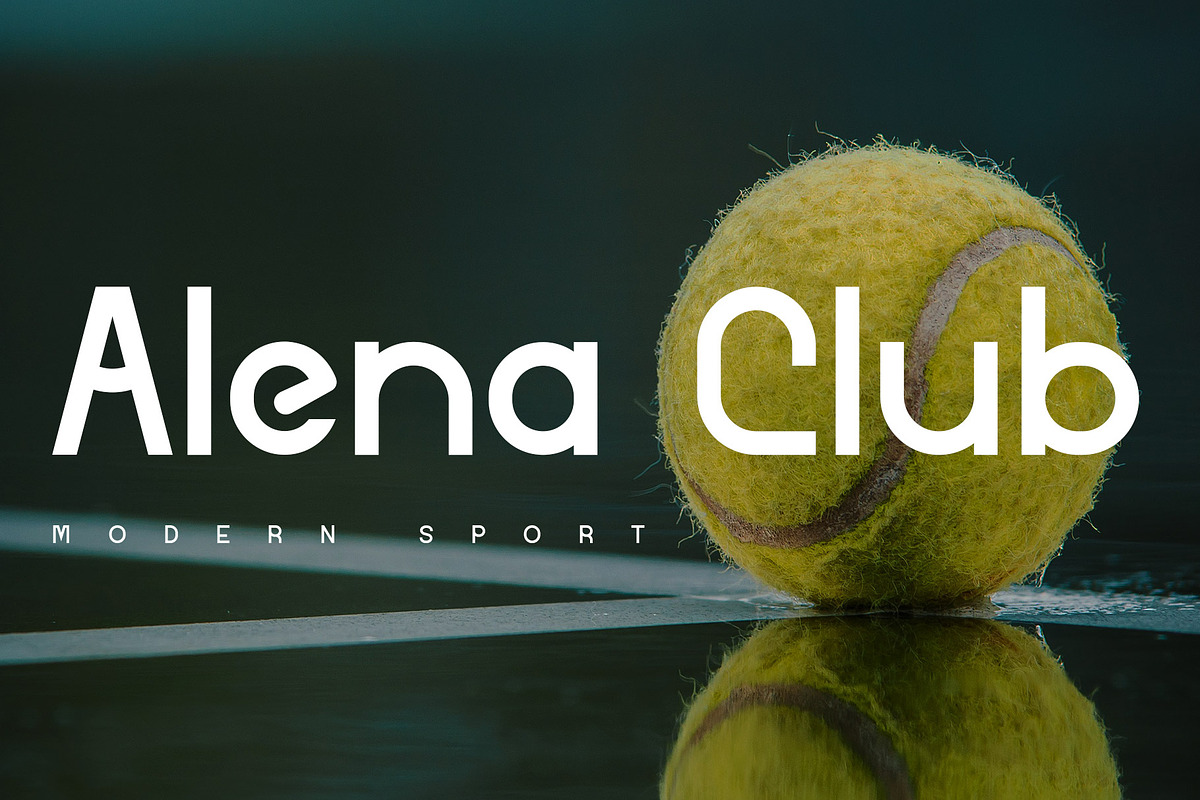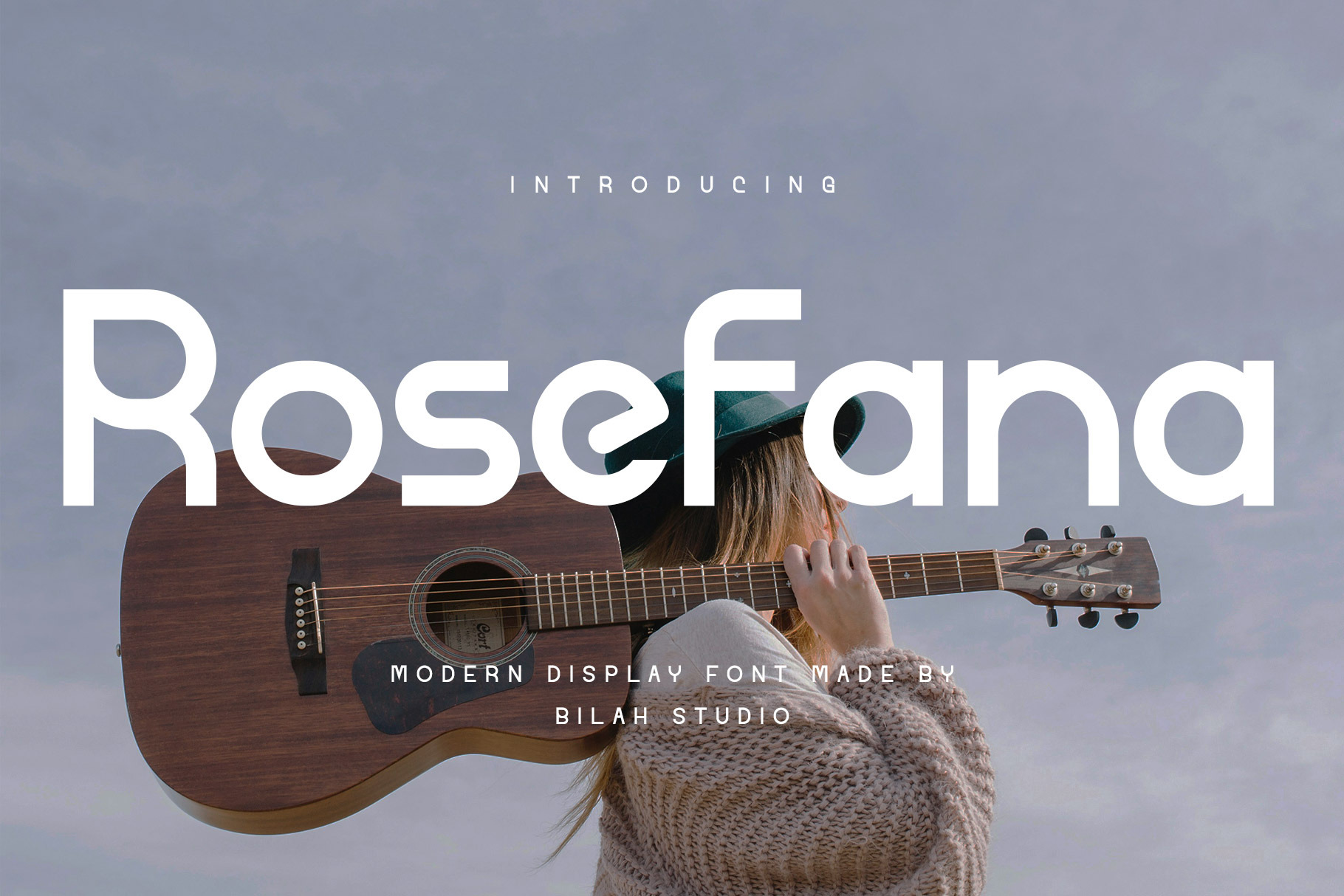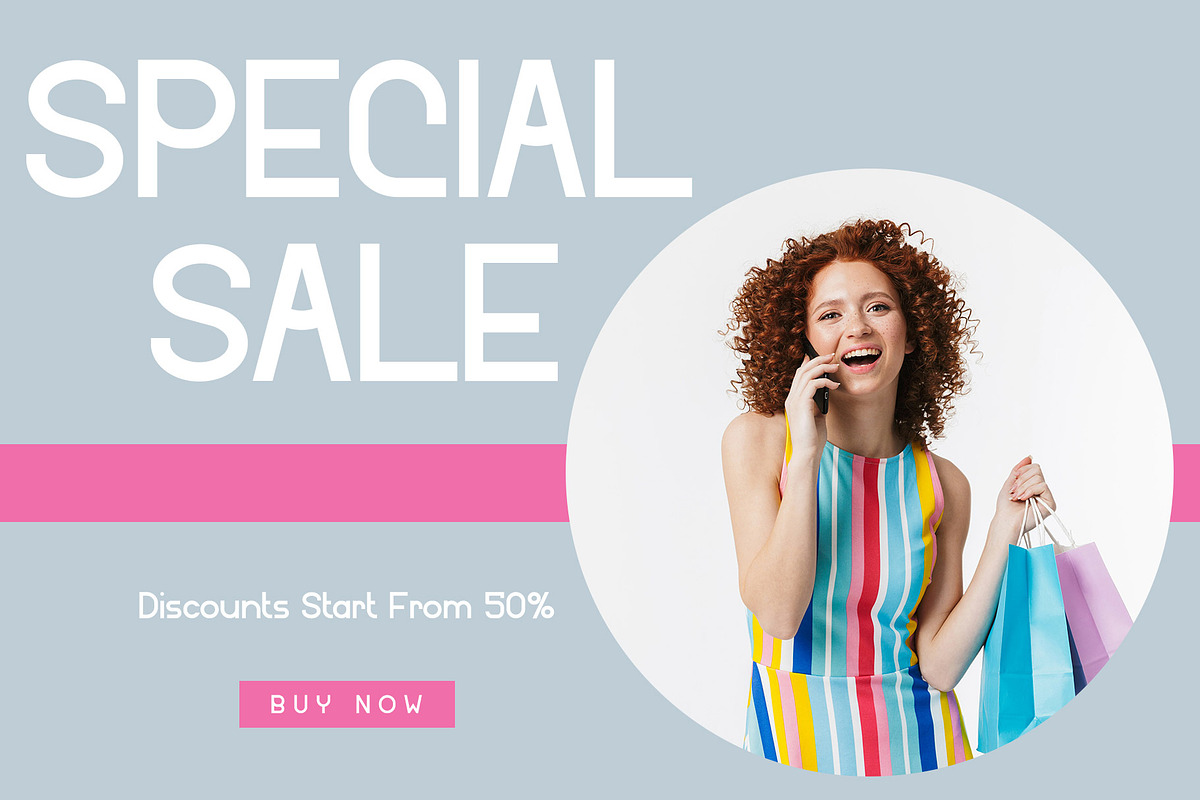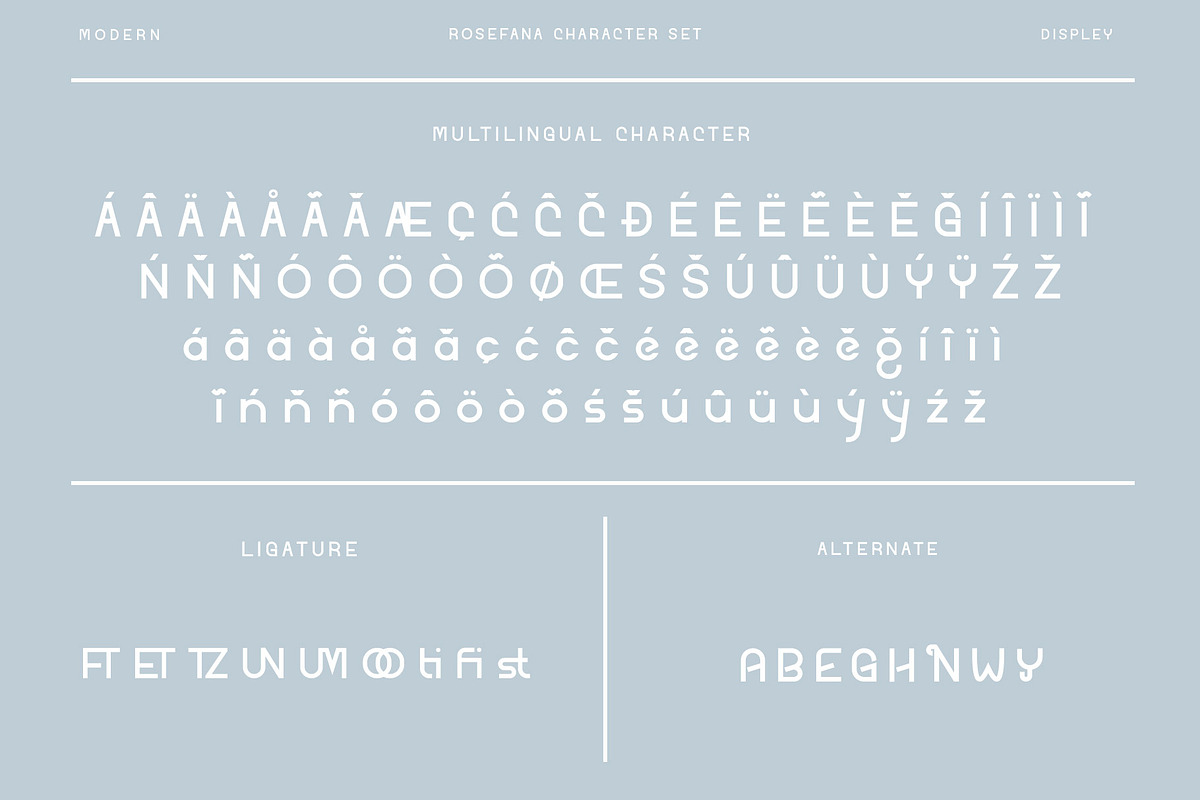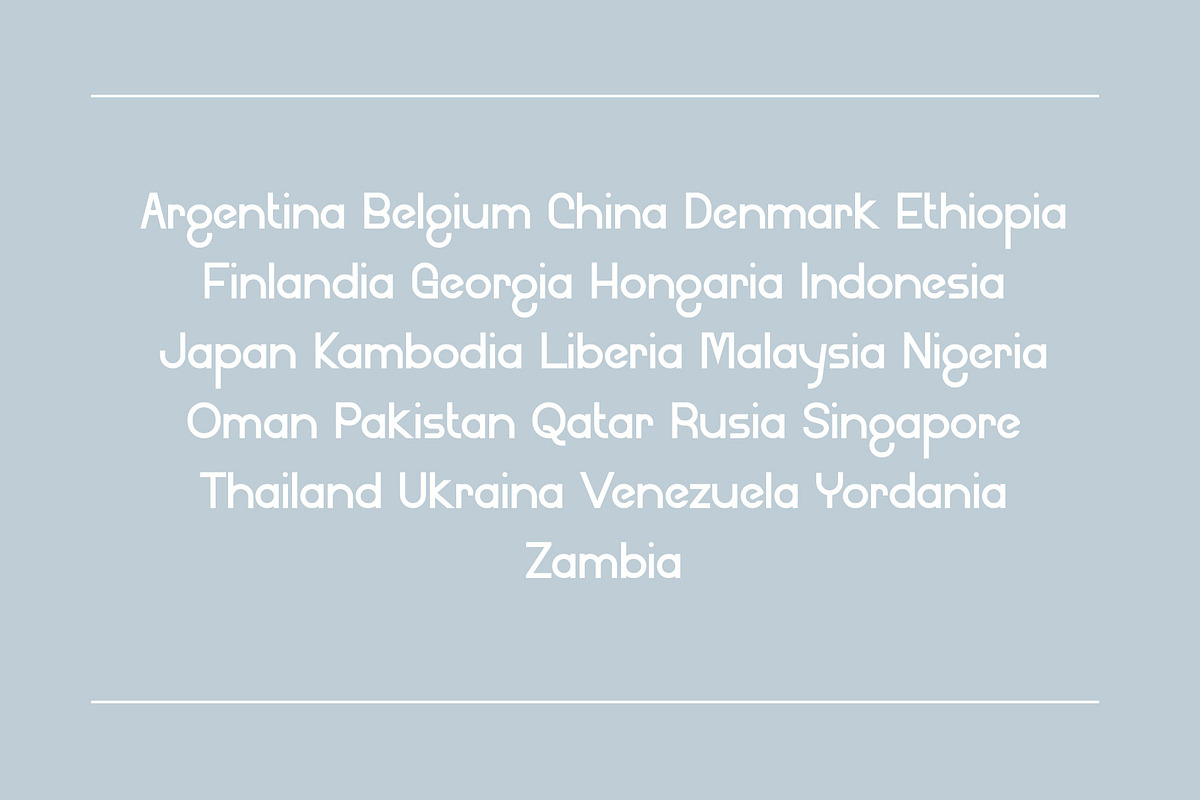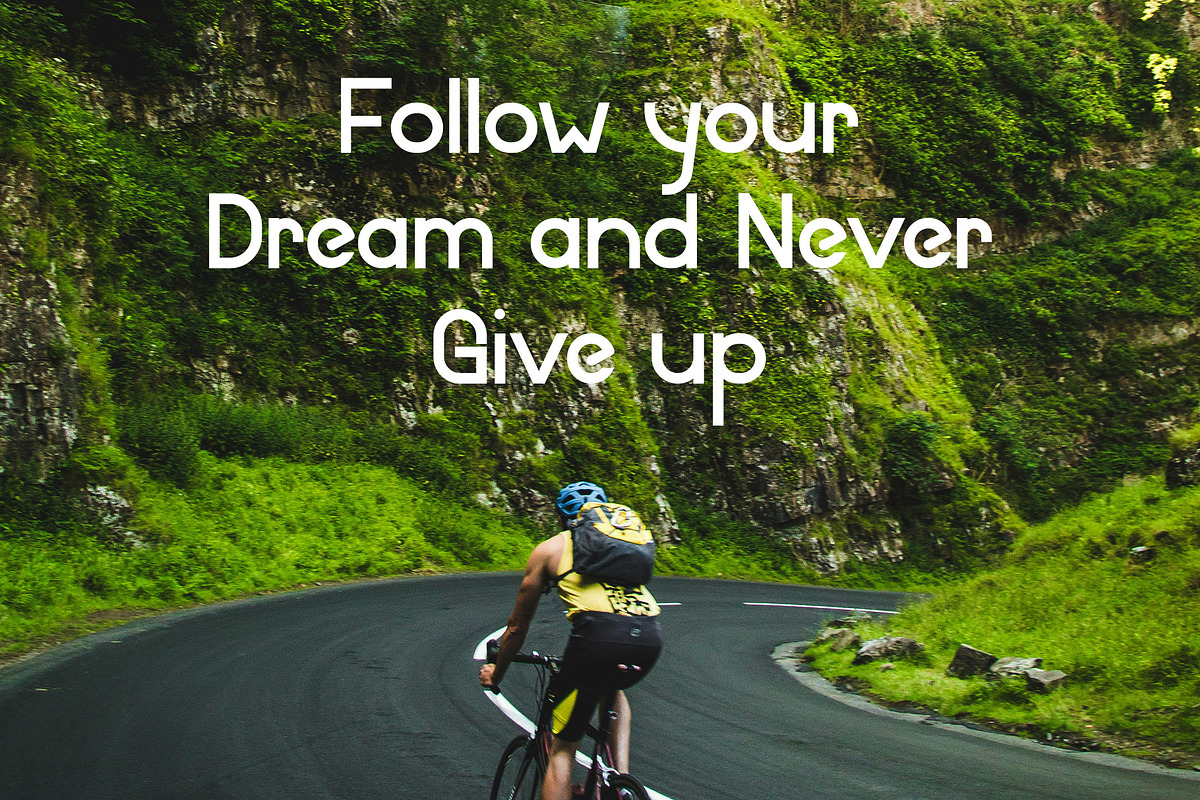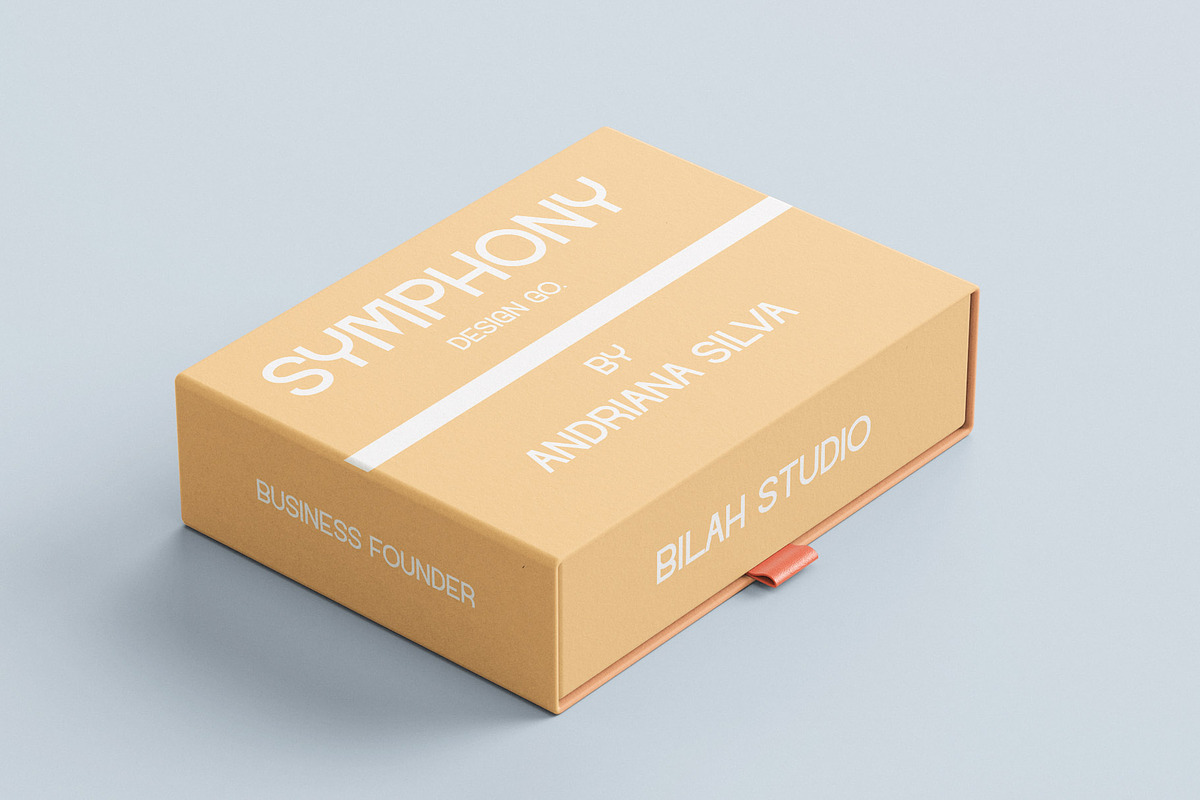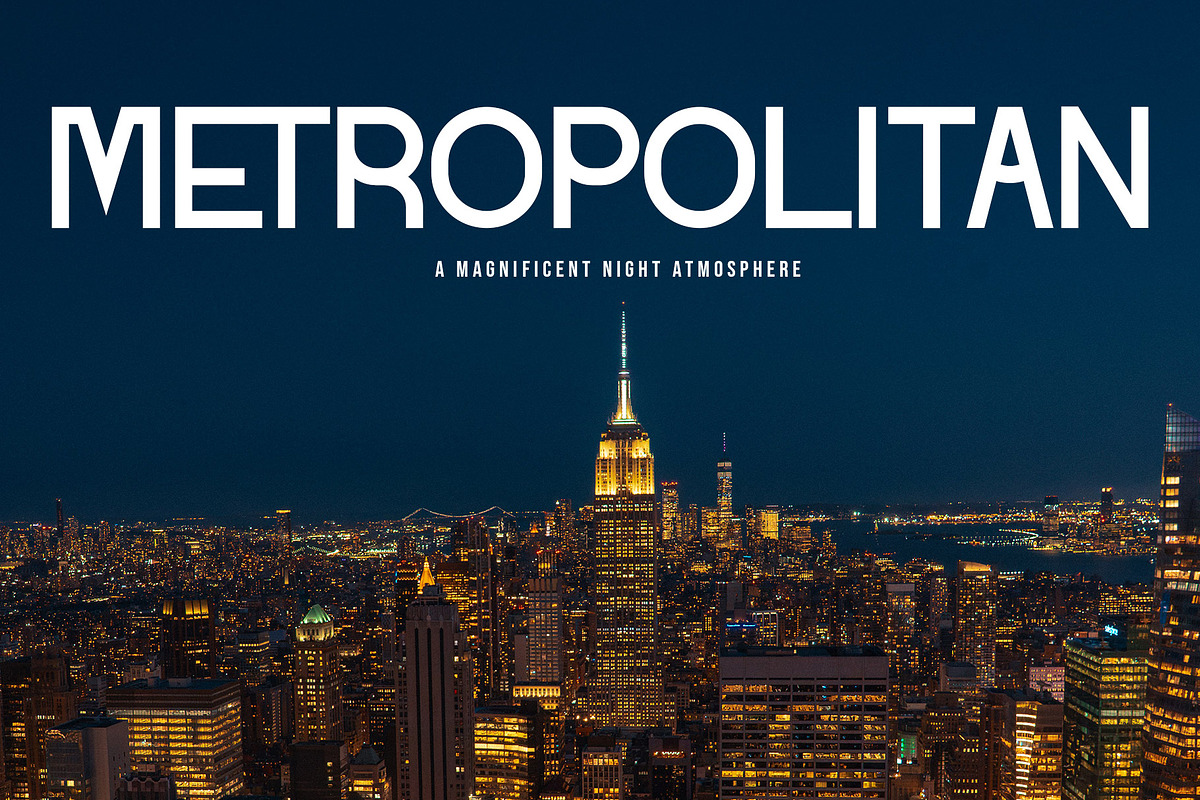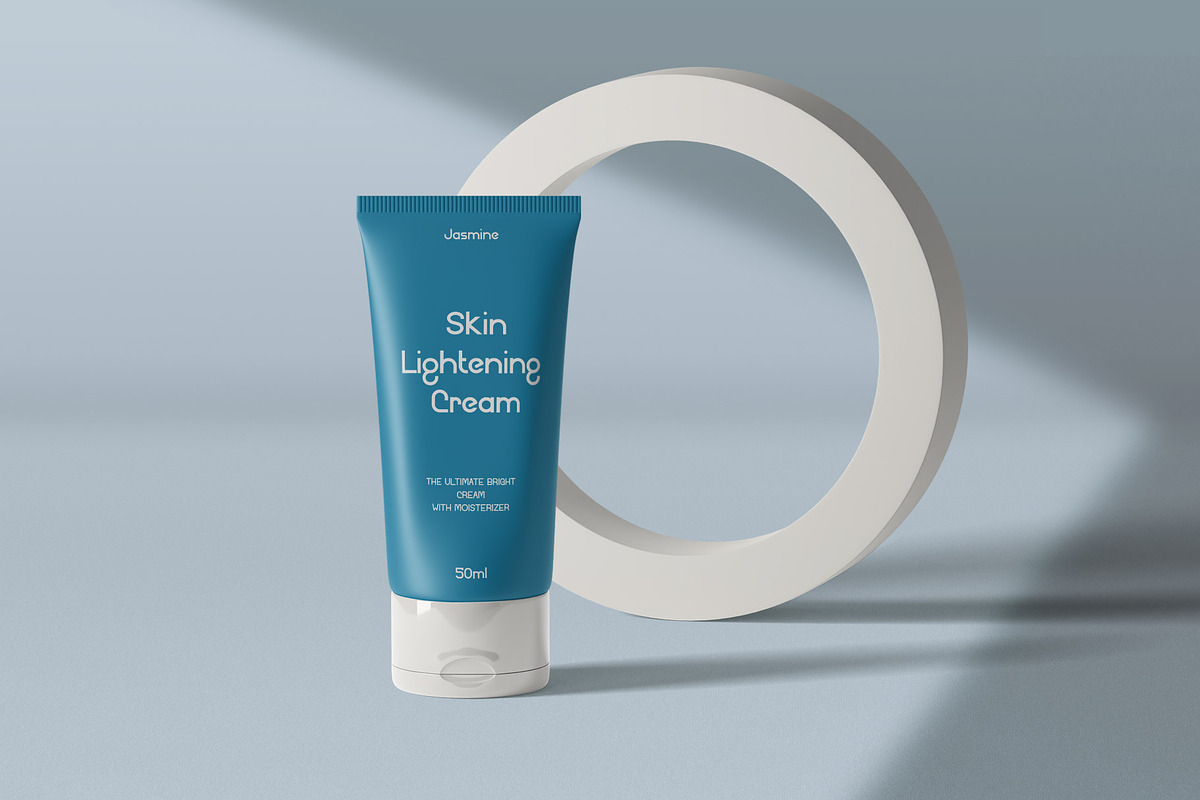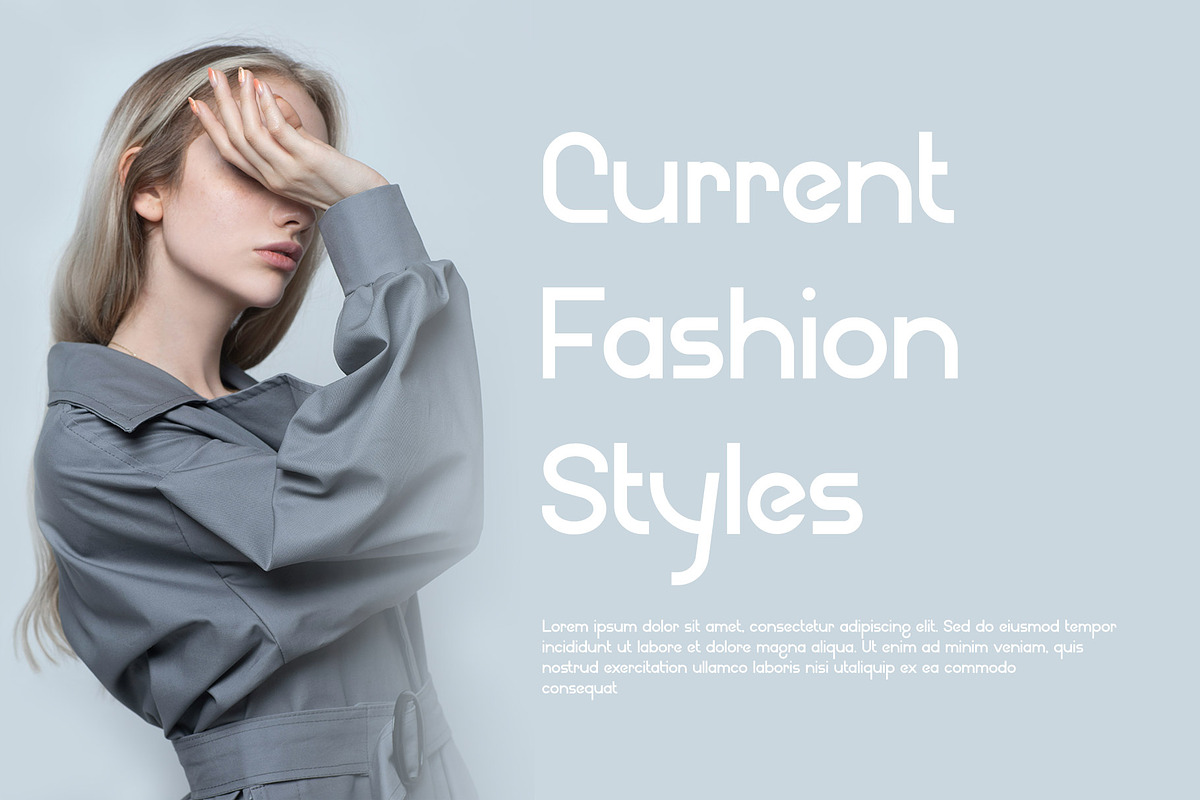
Rosefana - Simple Display Font
Rosefana is a simple typeface suitable for logos, branding, headers, titles, and various other applications. With precise kerning and spacing, specifically designed for impressive logos and branding materials, Rosefana ensures your designs leave a lasting impression. Enhance your design projects with Rosefana today.
- Standart letter A-Z and a-z